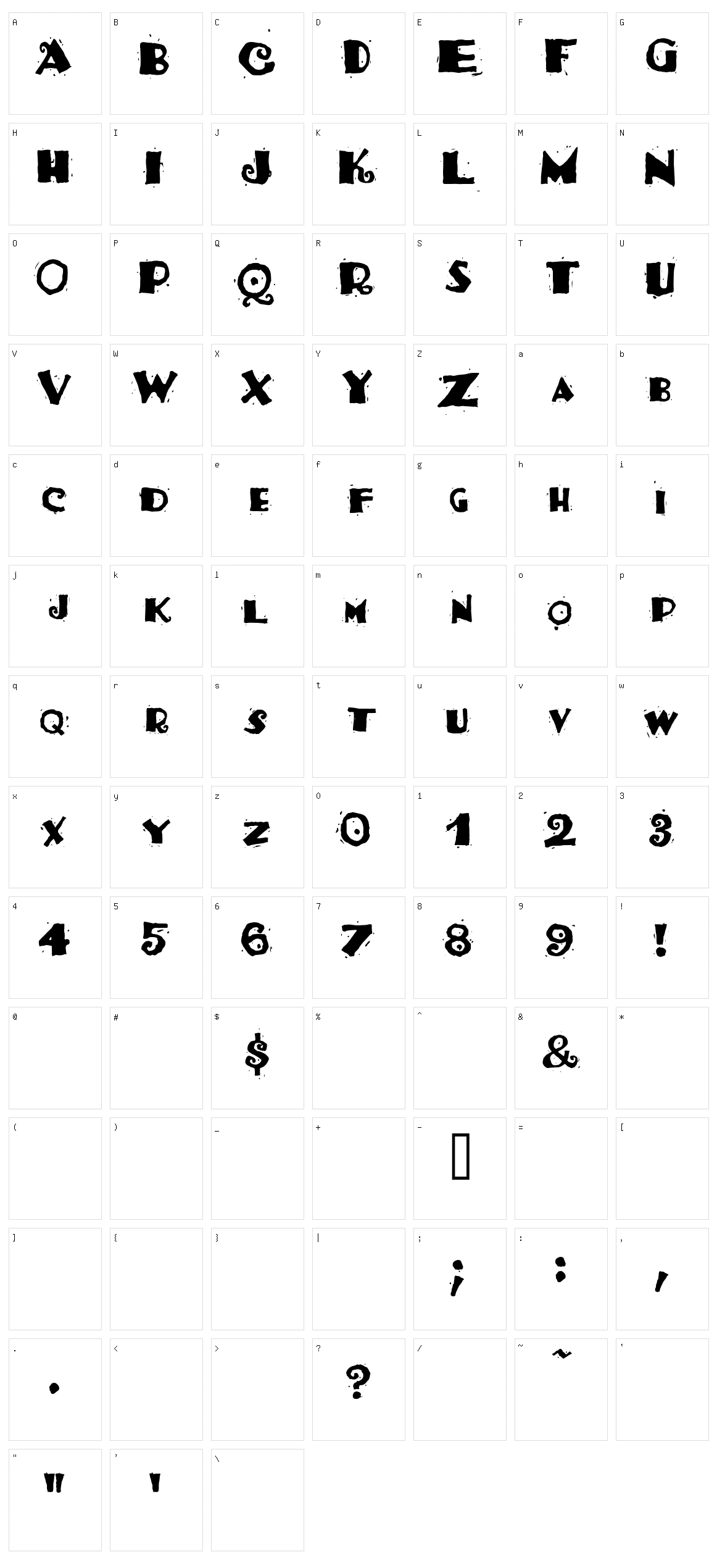
The free font Taco Salad is carefully designed by B. Haber, showcasing a thoughtful balance of creativity and usability and falls under the Mexican font style. When you download the ZIP file, it contains only 36.62 KB of font files, making it lightweight and quick to download. Please review the license details below to understand permitted usage and distribution rights. If license information is not available, we recommend using this font for personal projects only or contacting the author directly for commercial usage permissions.